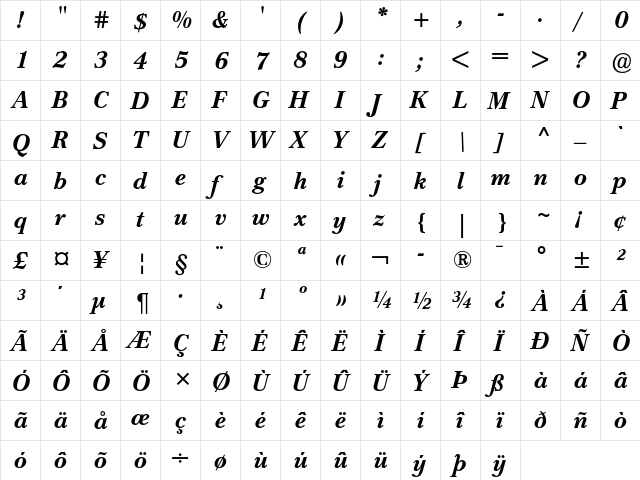
Cremona Bold Italic
Design Context for Cremona Typeface
Cremona offers clean, dependable letterforms without strong stylistic allegiance, making it a practical choice for designers who need flexibility. Its italic angle brings a sense of urgency and motion to the letterforms. The heavy weight commands attention and anchors typographic hierarchies.
Pro Tip: Try Cremona for annotation and caption copy alongside an upright companion — the contrast in angle creates a dynamic but ordered typographic system.